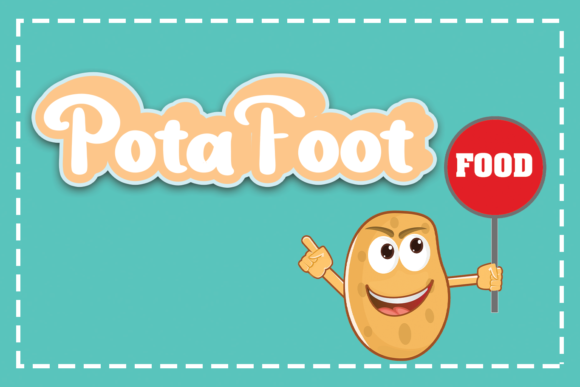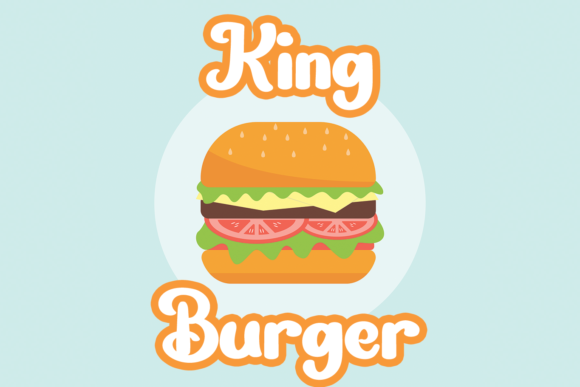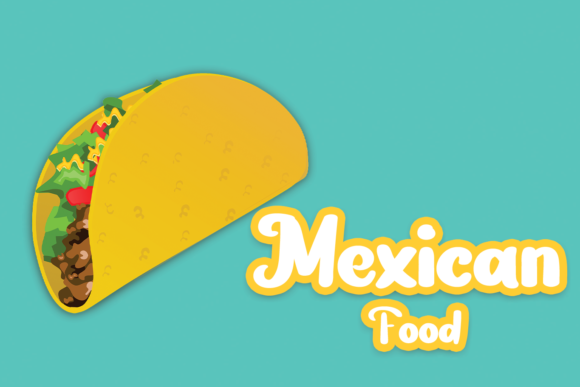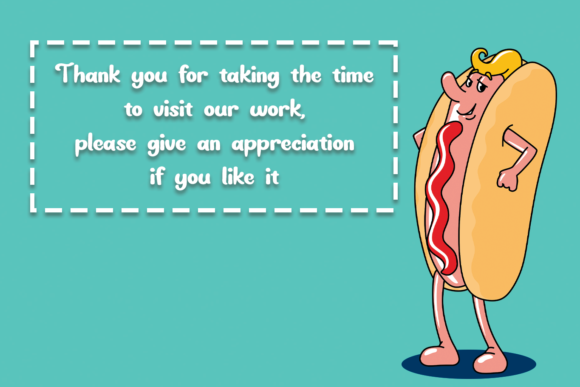
About Love Eat Font
Love Eat is a beautiful and bold script font that exudes elegance and class. This font was particularly crafted for those who need a beautiful and refreshing look to their designs!